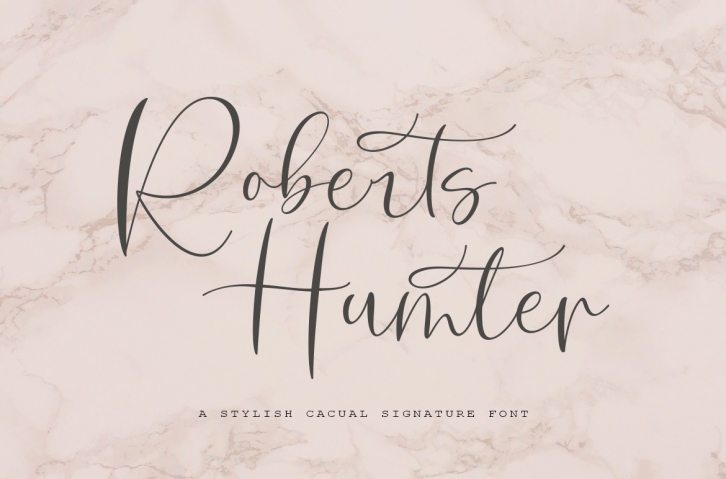
Roberts Humter is a beautiful font that was designed by mightype. It's a great choice for designers and creatives who need such a font. It was released on June 26, 2019 and the file size is 20.31 MB. Roberts Humter may give a more youthful, expressive and casual look to your project. It is a very beautiful, refined, elegant, and high-quality font.